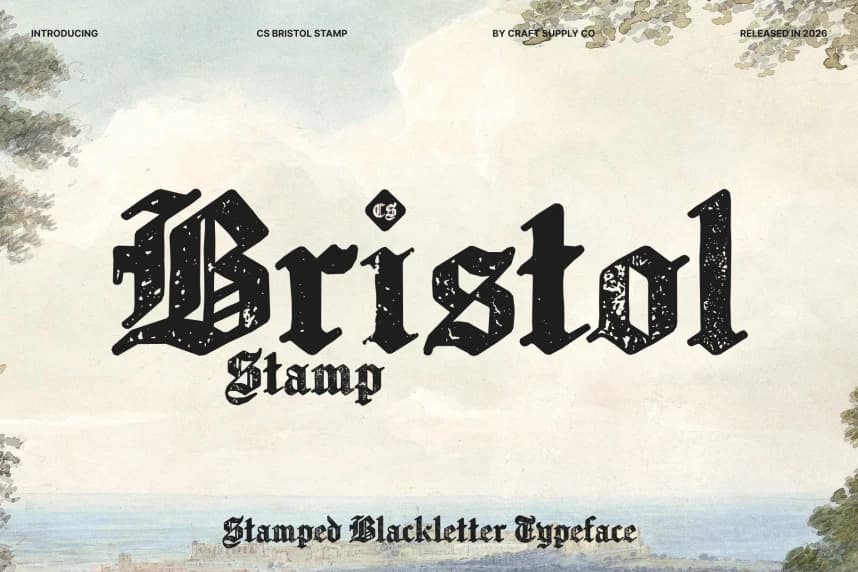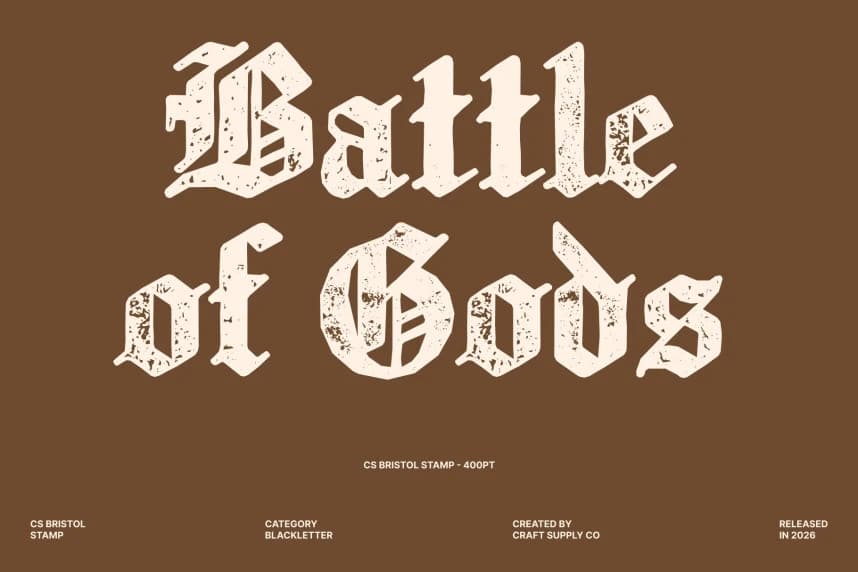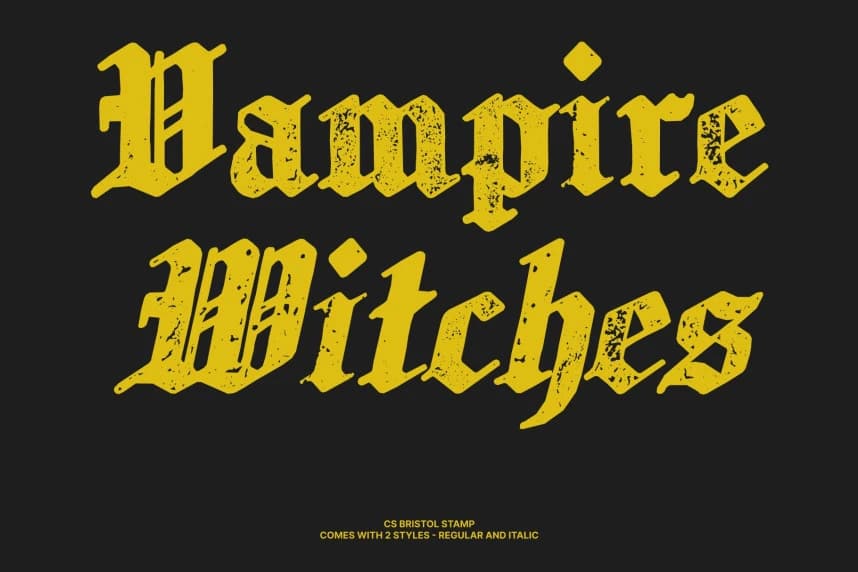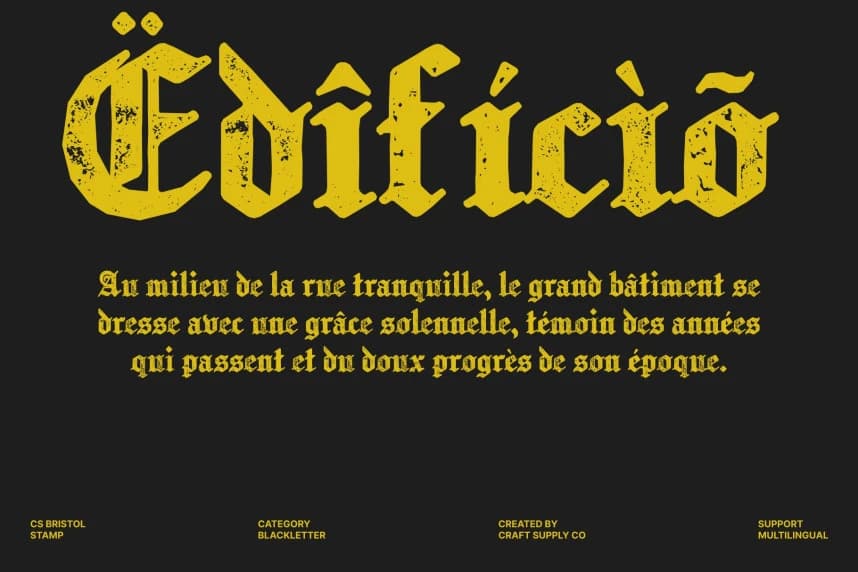
CS Bristol Stamp Font
CS Bristol Stamp Font – Blackletter Font with Historic Texture Old English Blackletter Display Serif. This is a distinguished display serif typeface inspired by the timeless Old English blackletter tradition. Its bold, angular letterforms reflect the elegance